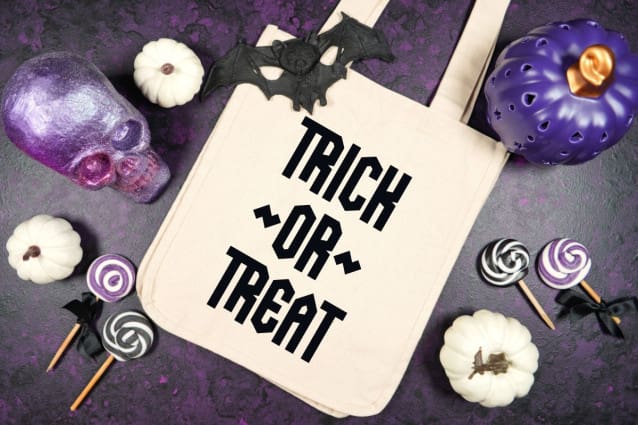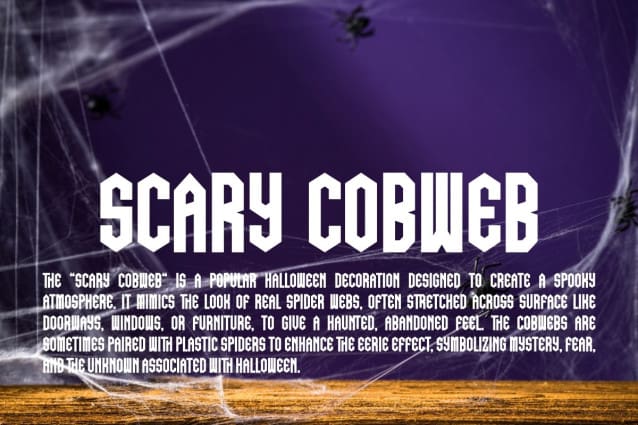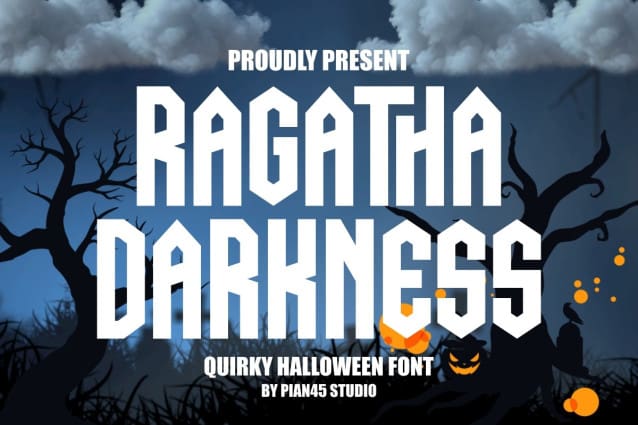
Ragatha Darkness Font
Ragatha Darkness Font is a bold and quirky Halloween-inspired font with a unique twist. Drawing inspiration from a trending box office film series, this font adds a playful yet eerie vibe to your designs. Perfect for quotes, backgrounds, apparel, and mockups like t-shirts, mugs, tote bags, pillows and Hocus Pocus Tumbler. This font brings a touch of spooky charm to any project and also great for social media that giving your content a standout with supernatural feel.